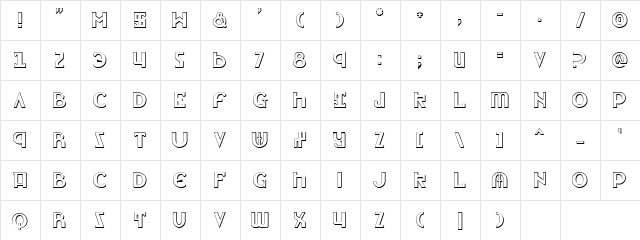
Complete Lionheart Shadow Shadow glyph index. Displaying only characters natively supported by Lionheart Shadow Shadow font.
Lionheart Shadow is built around its visual character rather than neutral utility - its distinctive forms are designed to make an impression at display sizes.
Font Pairing: Pair with a clean neutral sans-serif for body copy to let Lionheart Shadow's character lead without overwhelming the composition.
Pro Tip: Use Lionheart Shadow exclusively at display sizes - it was designed to be seen, not read at length. Let a neutral companion handle body copy.